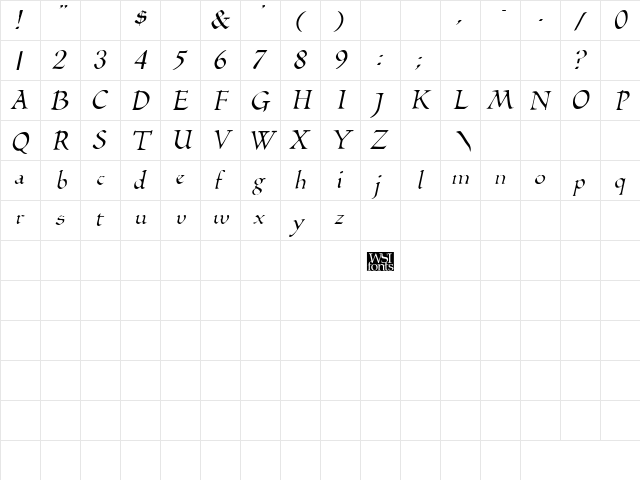
BilboDisplay Italic
Design Context for BilboDisplay Typeface
BilboDisplay is built around its visual character rather than neutral utility — its distinctive forms are designed to make an impression at display sizes. The slanted form adds forward momentum and visual energy.
Font Pairing: Pair with a clean neutral sans-serif for body copy to let BilboDisplay's character lead without overwhelming the composition.
Pro Tip: Treat BilboDisplay as the centrepiece of your typographic hierarchy. One strong heading set in a decorative face can carry an entire layout.